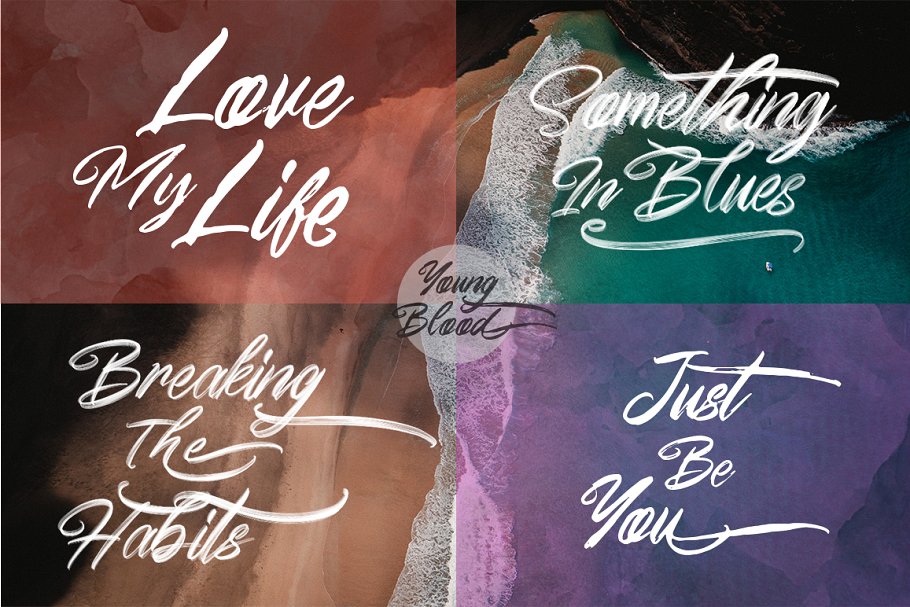
Young Blood Script Font – Free Demo
A new SVG and Solid Script font. If you are looking for a brush style suited to your design then it’s here! Presenting Young Blood Font. Young Blood Script Font is handwritten script font with messy grunge style, has two version SVG and Solid. Perfect for many different project such as logos & branding, invitation, stationery, wedding designs, social media posts, advertisements, product packaging, product designs, label, photography, watermark, special events or anything.